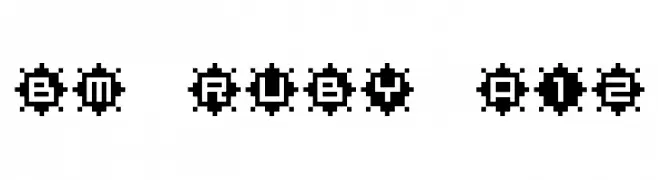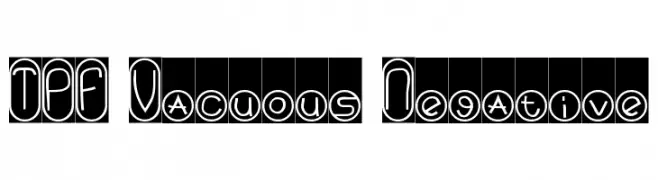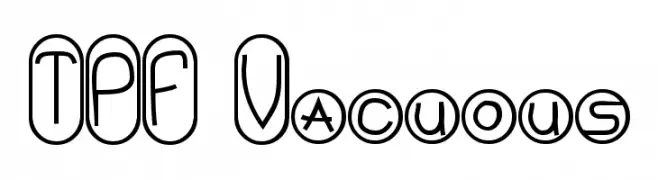
( weknow - Wino S Kadir - www.creativefabrica.com/designer/weknow/ )
A futuristic, geometric font with hollow, inverse letterforms enclosed in squares.
( !Exclamachine Type Foundry - exclamachine.com/ )
A bold, geometric font with characters enclosed in square outlines, offering a modern and mechanical look.
( !Exclamachine Type Foundry - exclamachine.com/ )
A bold, geometric font with angular shapes and enclosed characters.
( BitmapMania - bitmapmania.m78.com/ )
A pixelated, decorative font with characters enclosed in a gear-like border, evoking a retro digital feel.
( Character )
A decorative font with bold characters enclosed in vintage-style squares.
( Character )
A playful, decorative font with unique patterns and textures in each letter.
( Digital Agent Factory - web.archive.org/web/20030621173551/daf.to/font.html )
A playful, bold font with characters enclosed in circles, offering a unique and cohesive look.
( Etherbrian - www.etherbrian.com/ )
A modern, geometric font with characters enclosed in diamond shapes.
( Font Environment - www.fontenvironment.com/ )
A decorative font with characters enclosed in ovals, offering a bold and playful style.
( Font Environment - www.fontenvironment.com/ )
A playful, bubble-like font with characters enclosed in ovals, perfect for creative projects.